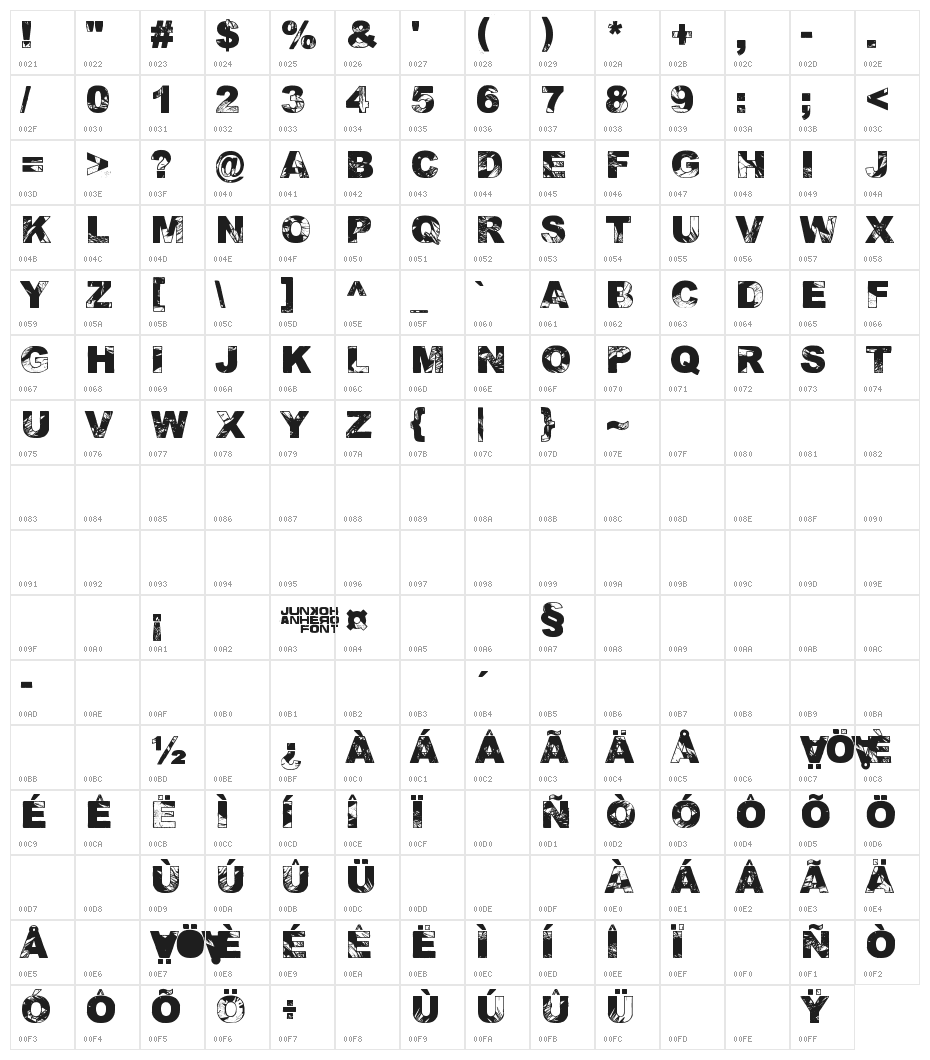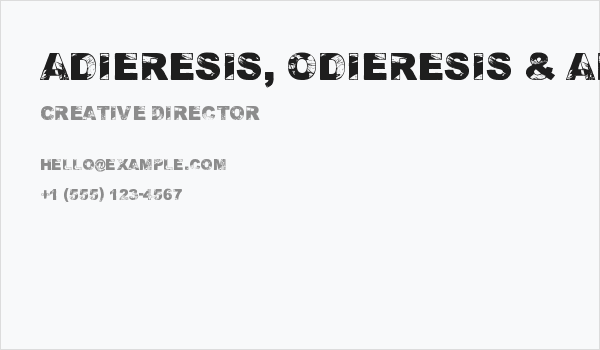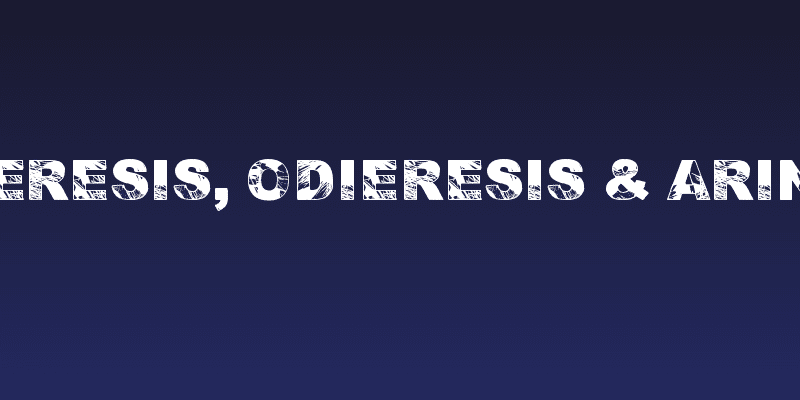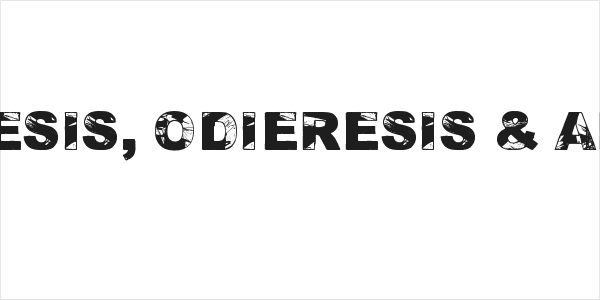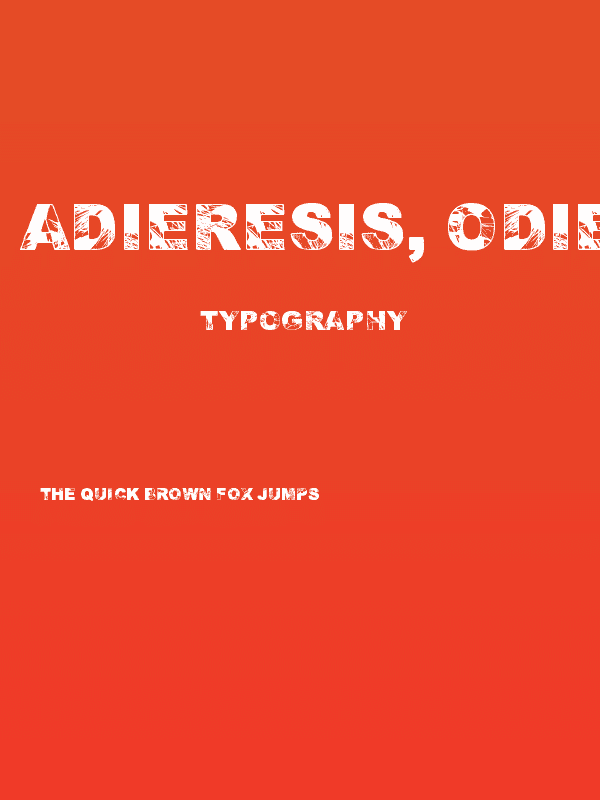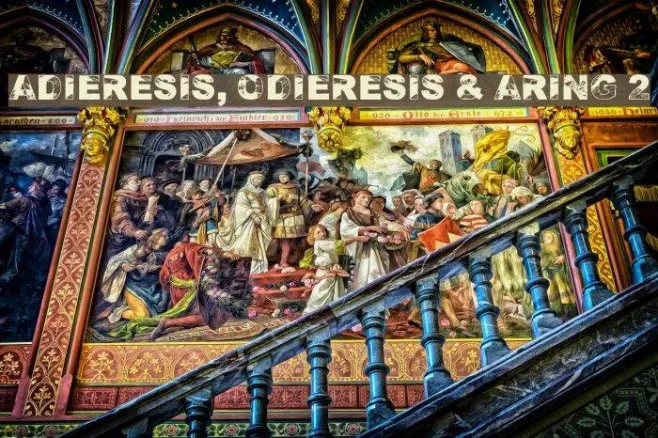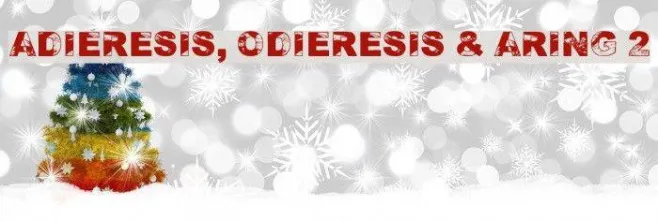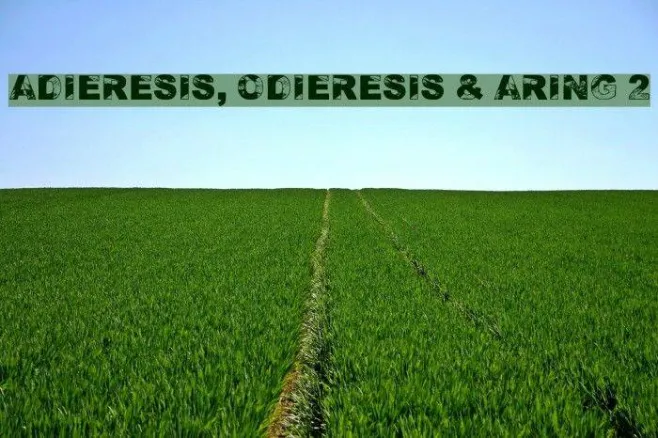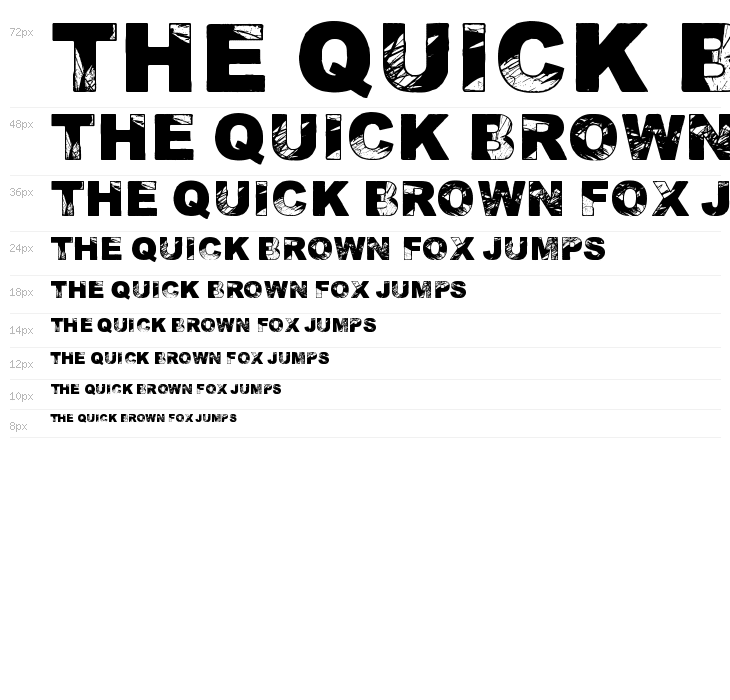
Adieresis, Odieresis & Aring 2 Font
Adieresis, Odieresis & Aring 2 Description
This font features a bold, decorative style with a unique textured pattern inside each character. The uppercase letters are prominent and eye-catching, making them ideal for display purposes. The numbers and special characters maintain the same boldness and decorative texture, ensuring consistency throughout. The font's design is reminiscent of a modern, artistic approach, with a playful yet structured appearance. Its distinct style makes it suitable for creative projects that require a strong visual impact.